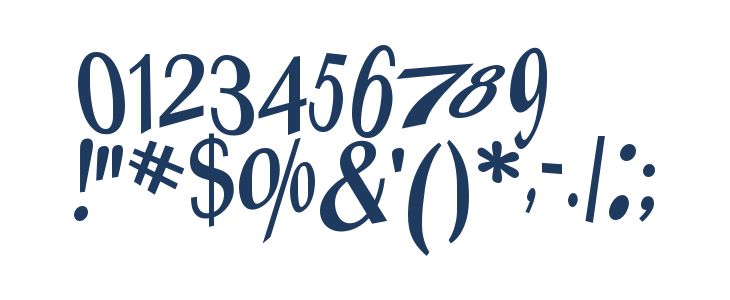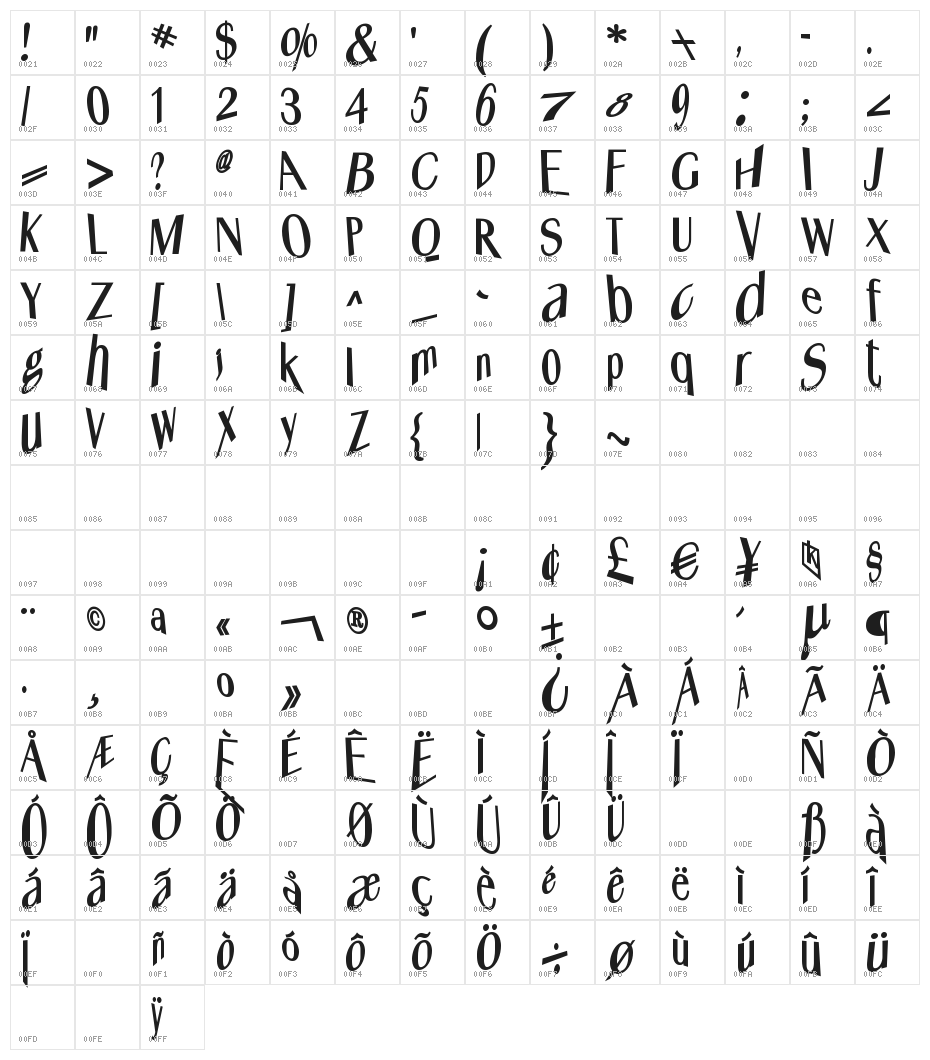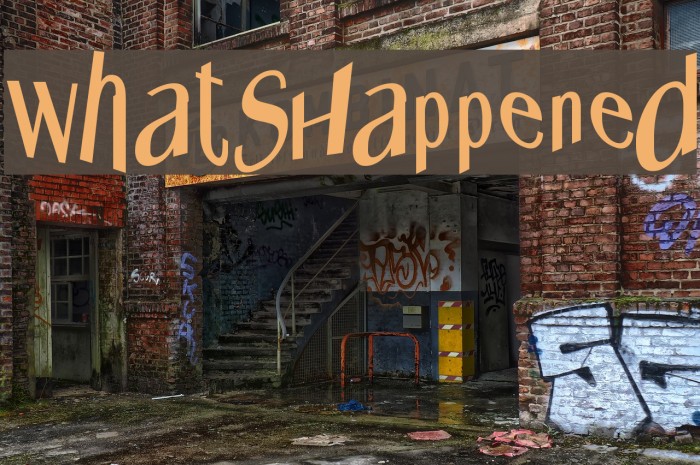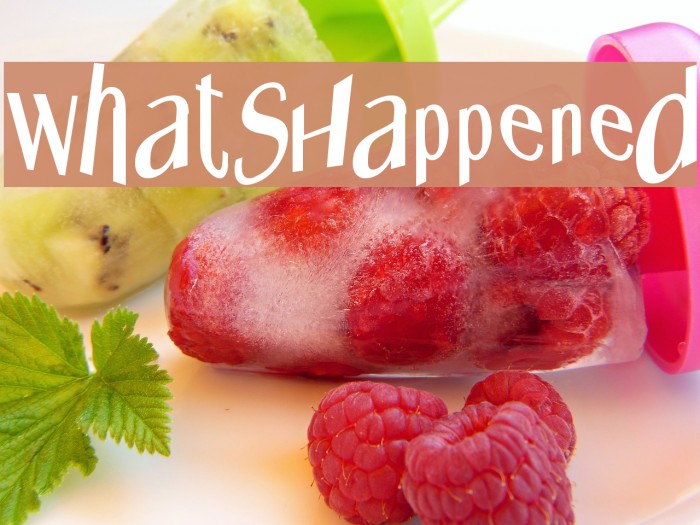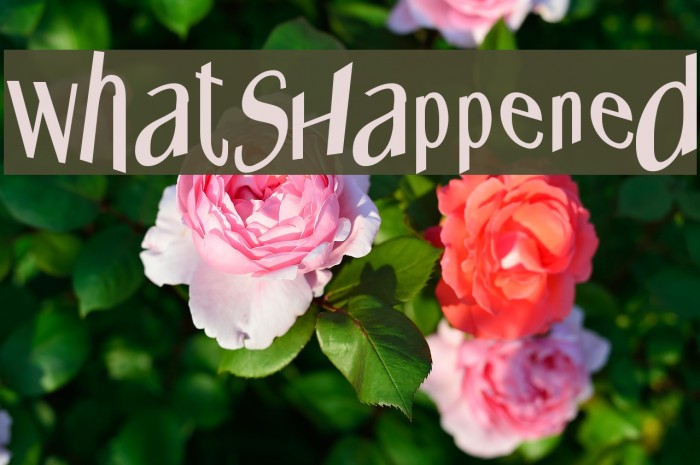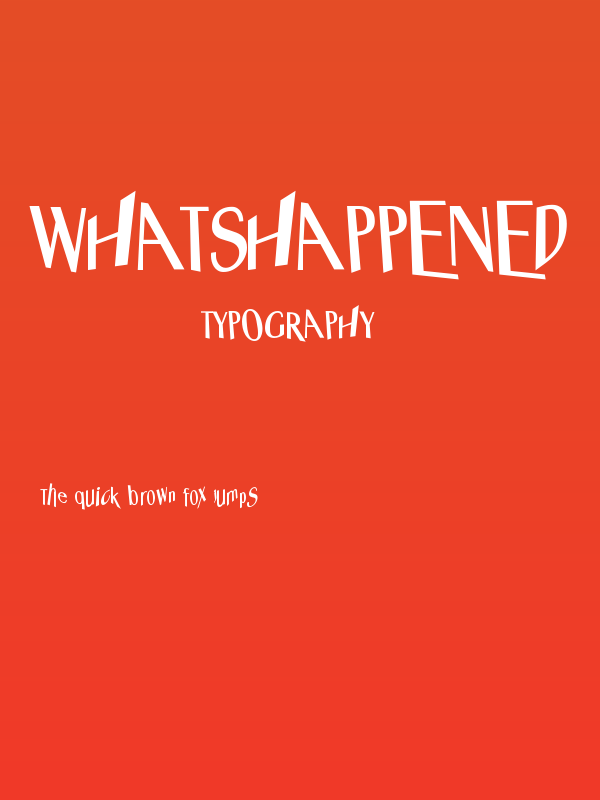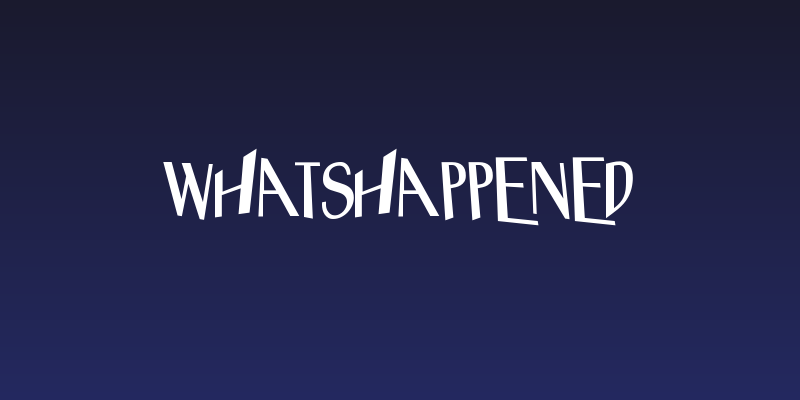
WhatsHappened Font
WhatsHappened Description
This font features a playful and dynamic style with a mix of sharp angles and smooth curves, creating a sense of movement and energy. The uppercase letters are bold and slightly irregular, giving them a hand-drawn appearance. The lowercase letters maintain this lively character with unique shapes and varying stroke widths. Numbers and special characters follow the same whimsical design, making the font suitable for creative and informal applications. The overall look is bold and eye-catching, perfect for projects that require a touch of fun and individuality.
| Proposed Projects | Ideal for children's books, playful branding, posters, and creative invitations. |